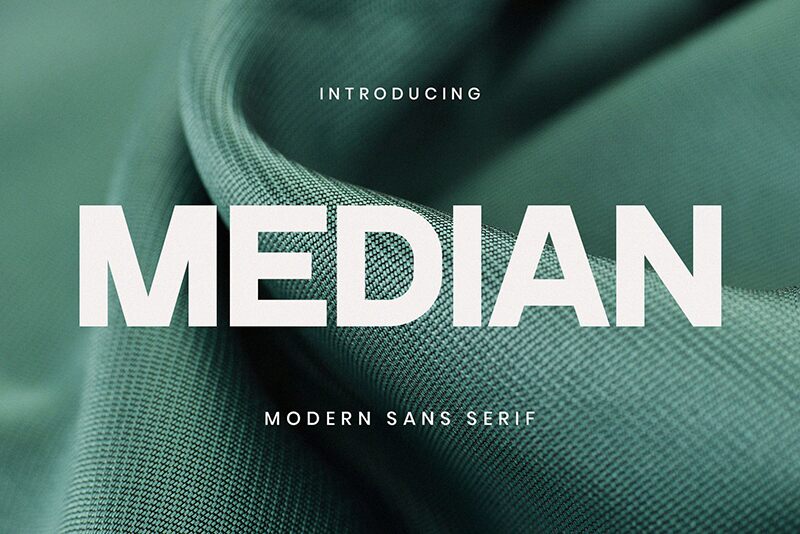
Median
Median, crafted by BrandSemut, stands out as a bold sans serif font with an expanded width that commands attention. Its robust and unembellished characters exude confidence and modernity, making it an ideal choice for designers seeking to make a strong statement. The generous spacing and weight of Median provide excellent readability, ensuring that even at larger sizes, the typeface remains clear and impactful.
This font's aesthetic is versatile enough to elevate brand identities, captivate in advertising headlines, and lend gravitas to editorial designs. Median's expanded character set not only offers a contemporary flair but also ensures consistency across various creative applications. Whether used in digital platforms or print media, Median's presence is both commanding and refined-a testament to its potential as a staple in any designer’s toolkit.